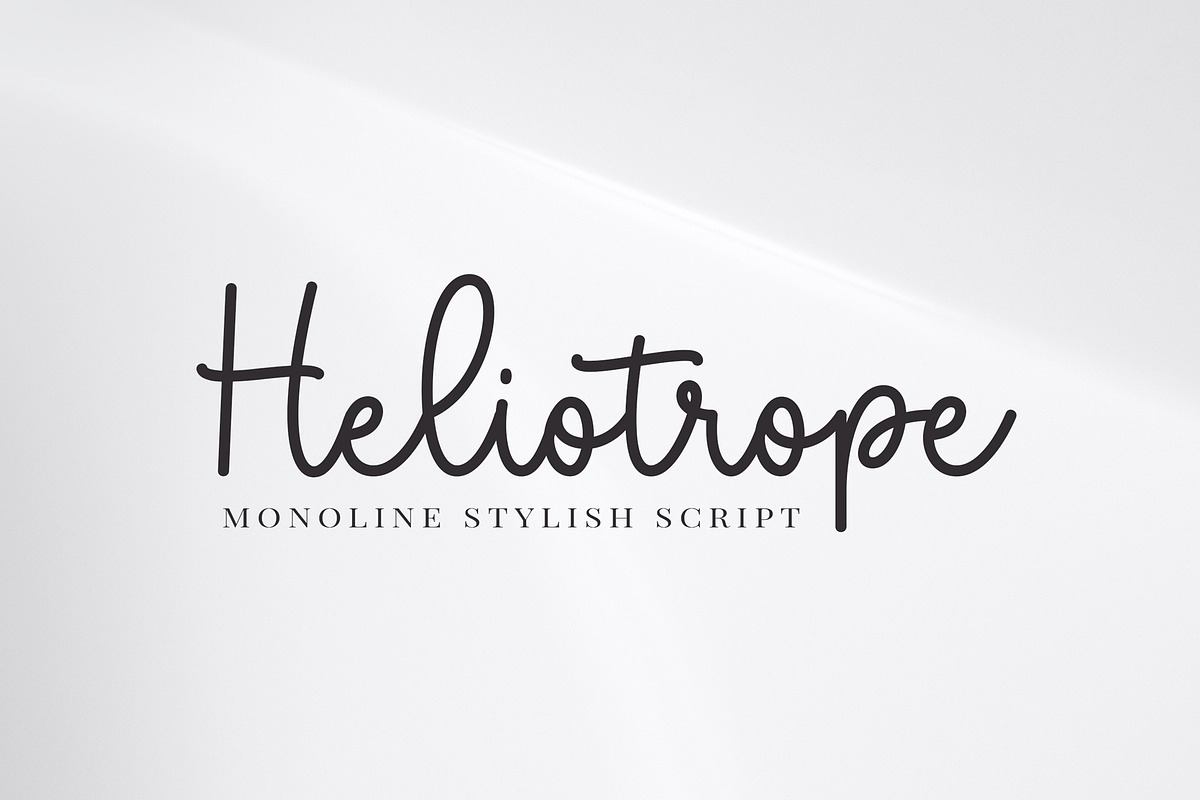
Heliotrope Monoline Stylish Script Font Free Download is a sleek, monoline script typeface designed to bring sophistication and elegance to your designs. With its consistent stroke weight and flowing letterforms, this font offers a refined, contemporary look while maintaining the beauty of a handwritten script.
Perfect for logos, branding, invitations, quotes, and social media posts, Heliotrope adds a personal touch to your projects without compromising on style. Its monoline structure gives it a modern, minimalist vibe, making it ideal for both elegant and casual design aesthetics.
The font includes uppercase and lowercase letters, numerals, punctuation, and multilingual support, offering flexibility for a wide range of applications in both digital and print formats.